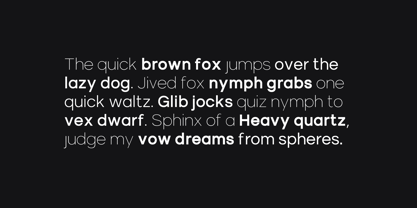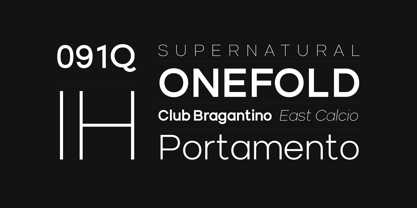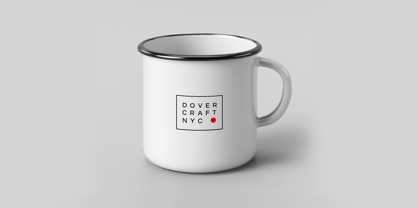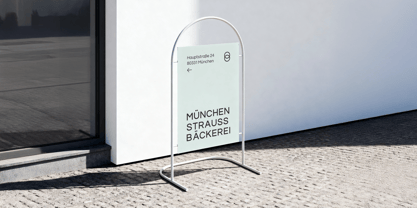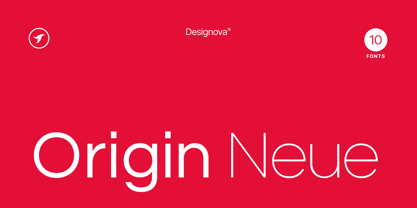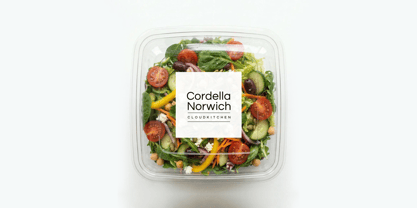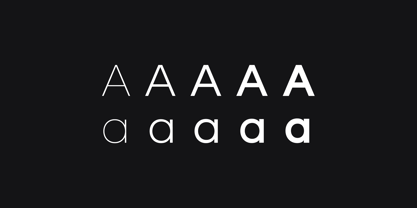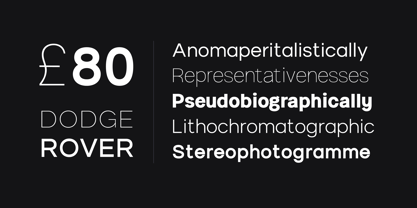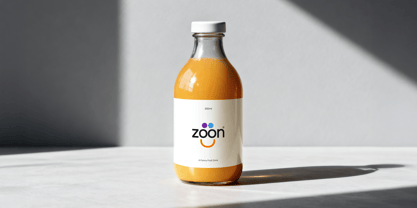
Origin Neue
by Designova
The Origin Neue Font Family was designed by Jean Johnson and published by Designova. Origin Neue contains 10 styles and family package options. More about this family
ABOUT THE TYPEFACE: Origin Neue is a refined, contemporary sans-serif typeface designed for clarity, balance, and precision, embodying the finest Swiss type design principles. Built on clean geometric foundations and softened with subtle humanist touches, it delivers a versatile typographic voice that feels both modern and timeless. This updated version features improved spacing, refined curves, and enhanced consistency across all glyphs, making it ideal for high-end branding, editorial layouts, and digital interfaces. Origin Neue excels in both large display settings and smaller body text, offering a calm, confident presence without visual noise. 306 GLYPHS INCLUDED: Handcrafted with powerful OpenType features in mind, each weight includes extended language support for Western European, Central European, and Southeastern European sets. A total of 306 glyphs are available, supporting more than 100 languages. USE CASES: Origin Neue is crafted for versatility across modern design needs, including: - Branding & visual identity systems - Logo design & wordmarks - Packaging for premium, minimal, and lifestyle brands - Editorial design for magazines, lookbooks, and portfolios - Web & UI design - Social media graphics - Signage & environmental graphics Its clean structure makes it especially suitable for: - Luxury & lifestyle brands - Architecture & interior studios - Fashion & beauty industries - Tech startups & modern businesses Designer / Foundry Information: Designed and distributed by Designova®, Origin Neue reflects Designova’s commitment to creating elegant, highly usable type systems that bridge aesthetics and functionality. Technical Specifications: Includes 10 fonts (5 weights + italics), with carefully balanced proportions and spacing across the family. Each weight includes italic versions. Supports a multilingual extended Latin character set with high glyph coverage across all styles. Weights and styles included: Thin, Light, Regular, Bold, Black, Thin Italic, Light Italic, Bold Italic, Black Italic. Features: - Clean geometric construction - Optimized kerning & spacing - Multilingual support (100+ Languages) - Professional-grade consistency - Suitable for both print and screen.
Designers: Jean Johnson
Foundry: Designova